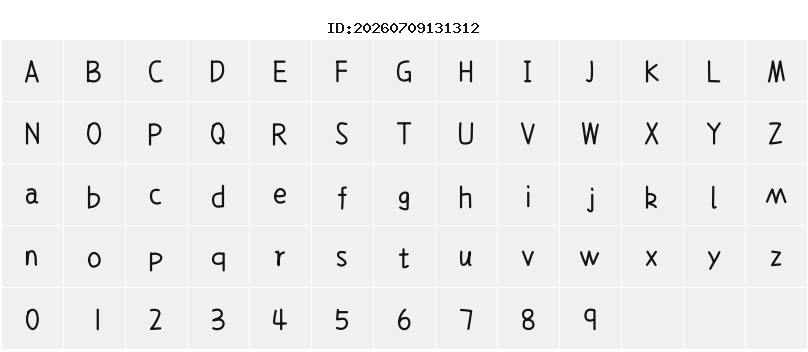
字帮玩酷体 Preview
• Font Name: 字帮玩酷体
• Font Style: 常规
• Font ID: 字帮玩酷体-常规
• Full Font Name: 字帮玩酷体-常规
• Version: 1.00
• PostScript Name: BangFont-WanKu-Regular
• Character Count: 22063
• Designer: 红点子
• Manufacturer: 加仑公司; 字帮
About 字帮玩酷体.ttf
字帮玩酷体.ttf is a modern, elegant sans-serif font designed for ultimate readability and visual harmony. Perfect for branding, headlines, web design, and print materials.